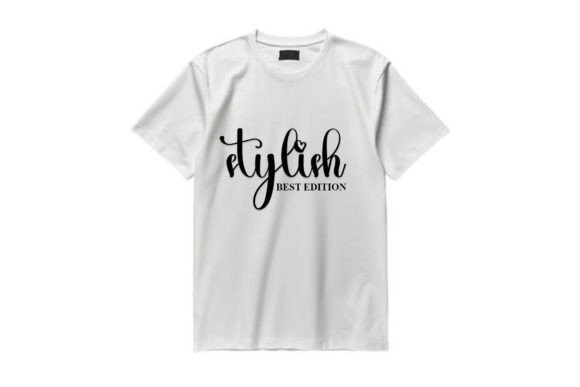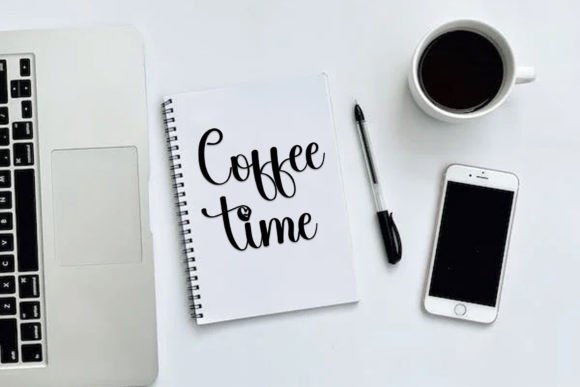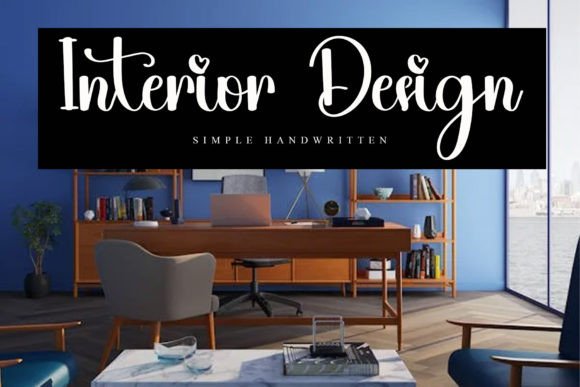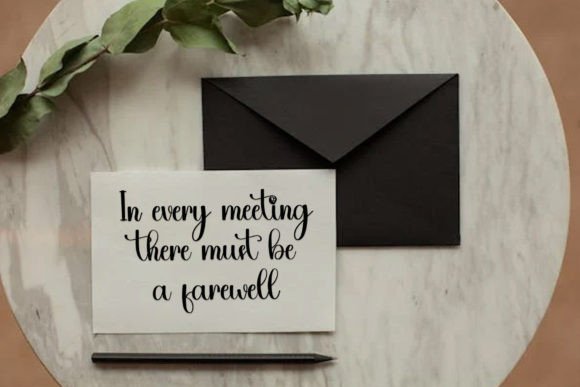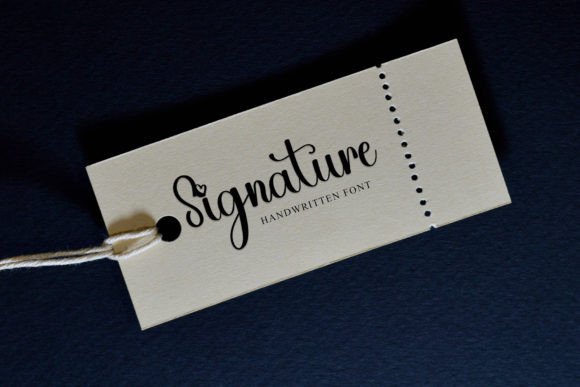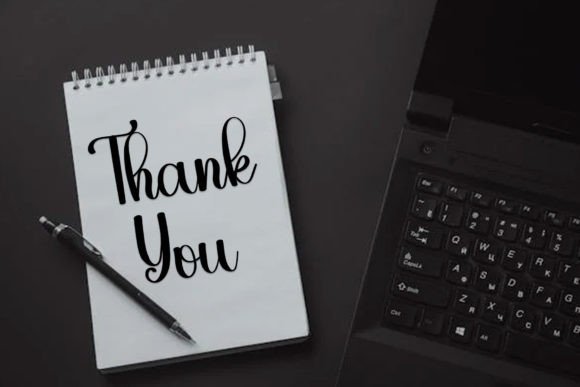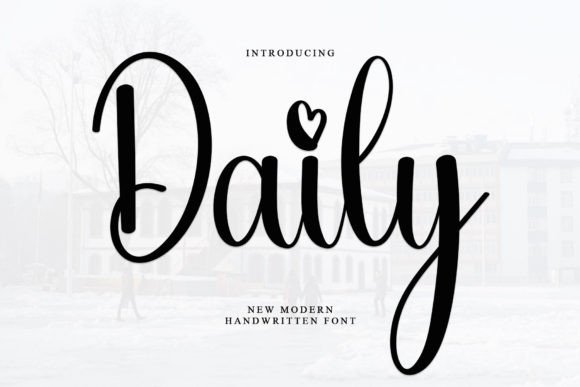
Introducing Daily Font: Elevate Your Designs with Elegance and Charm
In the world of typography, fonts play a crucial role in conveying the tone and personality of a design. For designers and crafters looking to add a touch of sophistication and warmth to their work, the Daily Font is an excellent choice. This stylish font exudes elegance and charm, making it perfect for a variety of applications, from invitations and branding to social media and more.
The Characteristics of Daily Font
So, what sets the Daily Font apart? Its fluid strokes and natural flow create a captivating, sophisticated look that is sure to impress. The font’s design is characterized by:
- Fluid strokes: The Daily Font features smooth, flowing strokes that give it a sense of elegance and refinement.
- Natural flow: The font’s natural flow creates a sense of movement and energy, making it perfect for designs that require a touch of dynamism.
- Sophisticated look: The combination of fluid strokes and natural flow gives the Daily Font a sophisticated look that is sure to elevate any design.
Perfect for Adding a Personal Touch
One of the key benefits of the Daily Font is its ability to add a personal touch to any design. Whether you’re creating:
- Invitations: Use the Daily Font to create beautiful, elegant invitations for weddings, parties, and other special occasions.
- Branding materials: The Daily Font is perfect for adding a touch of sophistication to your brand’s identity, from logos to business cards.
- Social media graphics: Use the Daily Font to create eye-catching social media graphics that are sure to stand out.
Bringing Warmth and Creativity to Your Designs
The Daily Font is more than just a stylish font – it’s also a versatile tool that can bring warmth and creativity to any design. With its elegant and charming design, this font is perfect for:
- Creative projects: Use the Daily Font to add a touch of personality to your creative projects, from art journals to scrapbooking.
- Marketing materials: The Daily Font is perfect for creating marketing materials that require a touch of sophistication and elegance.
- Personal projects: Use the Daily Font to add a personal touch to your personal projects, from photo albums to DIY crafts.
Why Choose the Daily Font?
So, why choose the Daily Font for your next design project? Here are just a few reasons:
- Elegance and charm: The Daily Font exudes elegance and charm, making it perfect for designs that require a touch of sophistication.
- Versatility: This font is versatile and can be used for a variety of applications, from invitations to branding materials.
- Easy to read: The Daily Font is easy to read, making it perfect for designs that require a clear and concise message.
In conclusion, the Daily Font is a stylish and elegant font that is perfect for designers and crafters looking to add a touch of sophistication and warmth to their work. With its fluid strokes and natural flow, this font creates a captivating, sophisticated look that is sure to impress. Whether you’re creating invitations, branding materials, or social media graphics, the Daily Font is an excellent choice. So why not give it a try and see how it can elevate your designs?